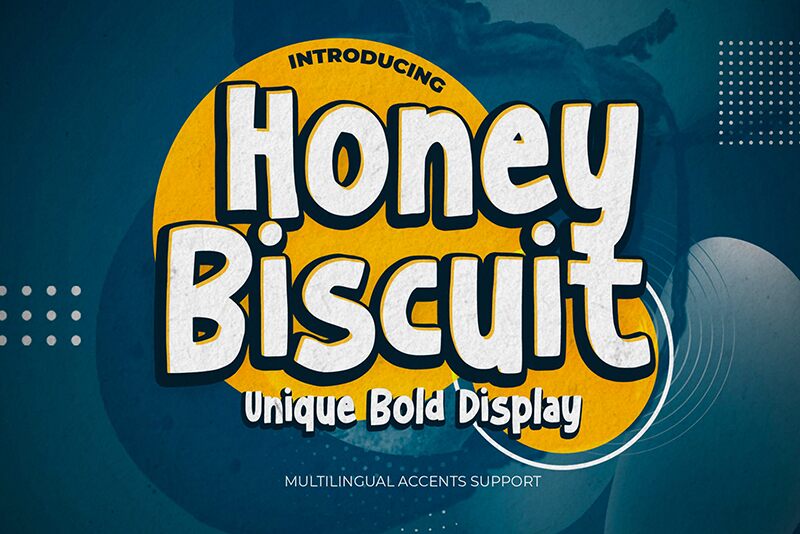
Honey Biscuit
Honey Biscuit by Gassstype is not just a font; it's a playful invitation to creativity. With its cartoon-inspired display and semi-light weight, this typeface brings a modern twist to the casual quickness of handwritten notes. Honey Biscuit stands out with its bold, yet cute demeanor, offering an elegant touch that transforms any project into something uniquely eye-catching.
Designed to infuse fun into logos, posters, and various design endeavors, Honey Biscuit excels in crafting modern and unique visuals. Its suitability extends across branding to packaging, enhancing DIY projects with a natural charm that's hard to overlook. Whether adorning greeting cards or jazzing up websites and photography overlays, this typeface ensures your creations leave an impression of warmth akin to its namesake treat. Engage with Honey Biscuit and sweeten your designs with its delightful character.